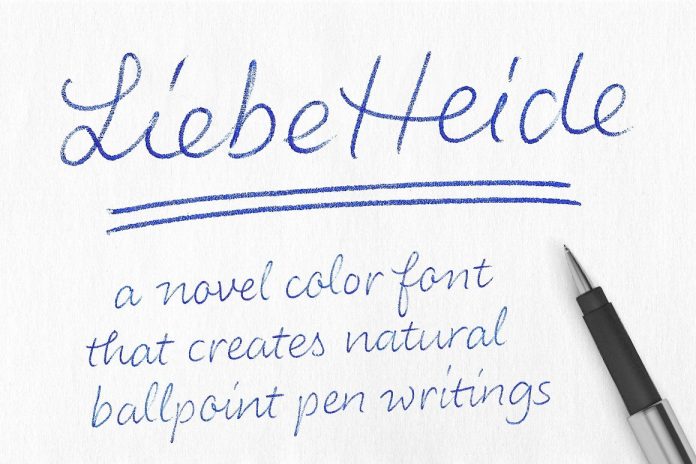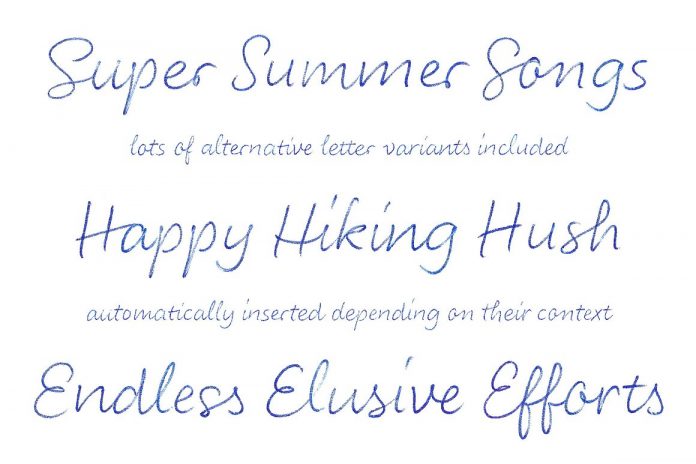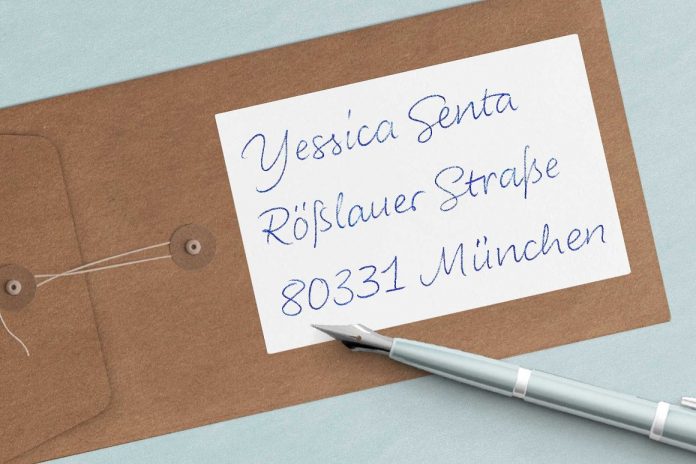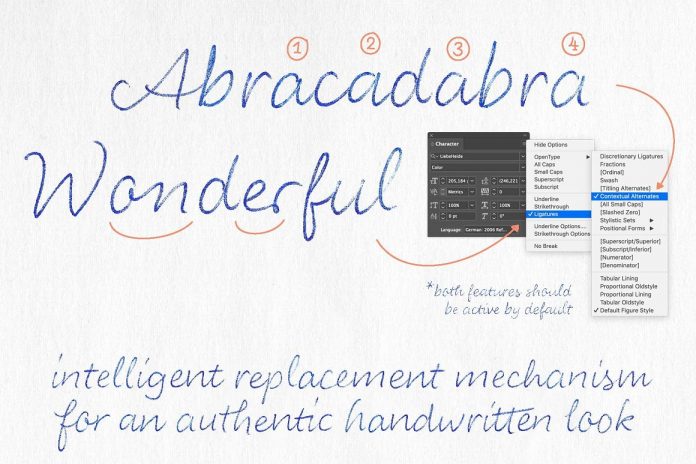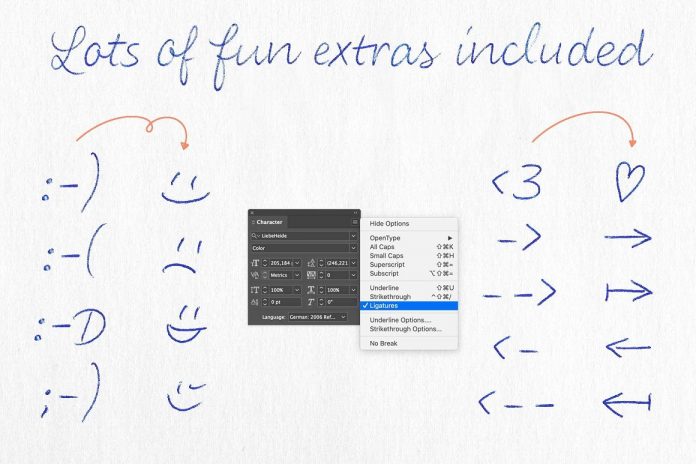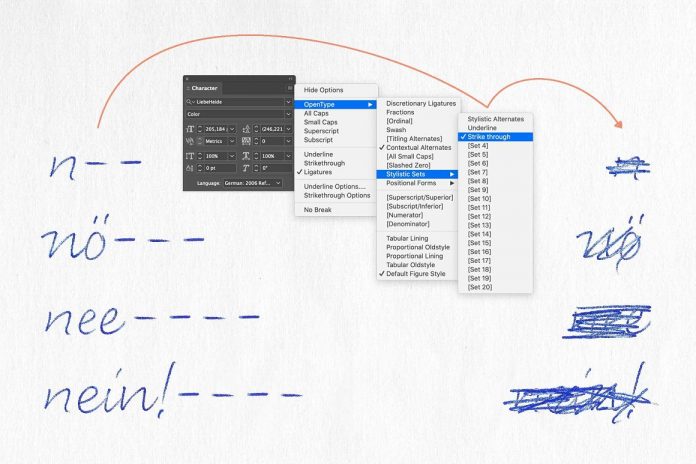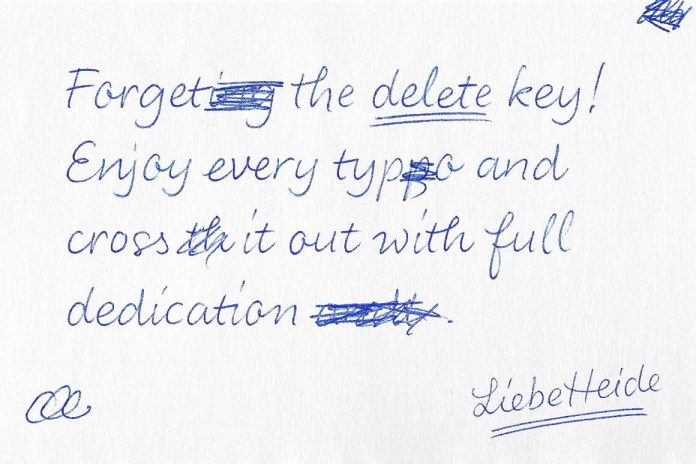
Liebe Heide font, a natural handwriting typeface published by German foundry Liebe Fonts
If you are looking for a script font that offers an authentic handwritten style, Liebe Heide might be a perfect choice. Designed by Ulrike Rausch of the German foundry Liebe Fonts, this typeface is based on high-res digitized ballpoint pen letterings. Type designer Ulrike Rausch has combined this natural handwriting style with lots of OpenType features including ligatures and alternate letters. The font also comes with typical handwriting attributes such as symbols, doodles, underlines (single and double), and plenty of strikethroughs. The font works in all professional graphic design tools including all common Adobe Creative Cloud apps as well as all native Mac OS apps such as Pages, Numbers, or Keynote. Please note, the color of words set in Liebe Heide cannot be changed in text editors, but you can do it easily with Photoshop filters. To learn more about this natural handwriting font, just click on the following link.